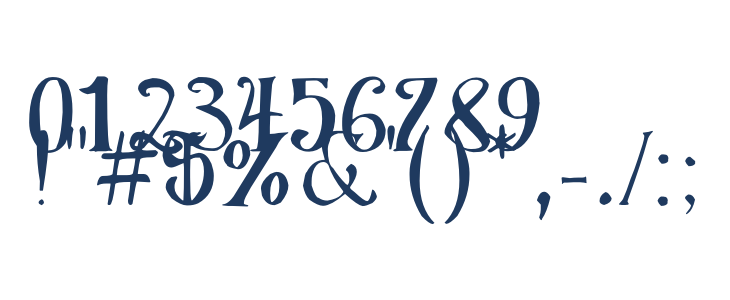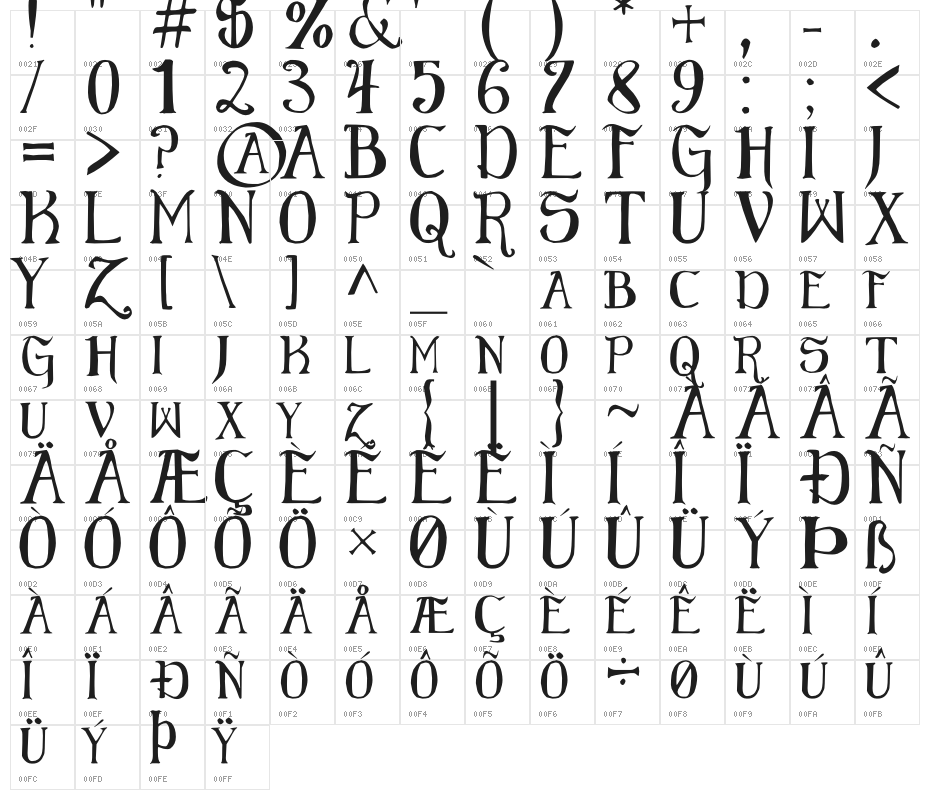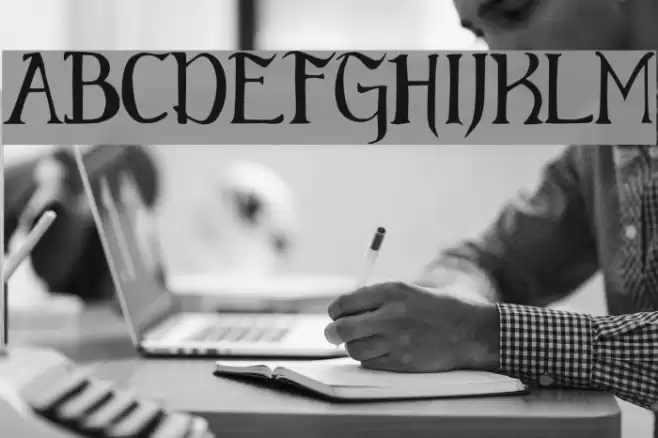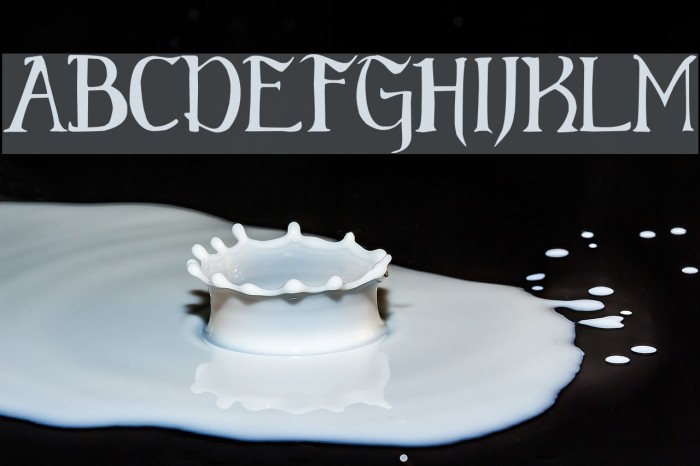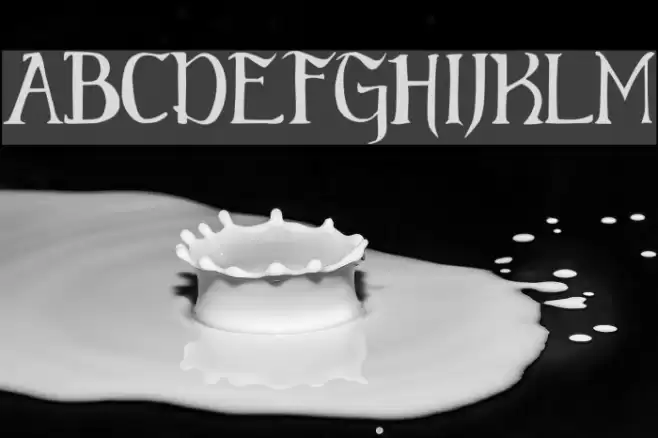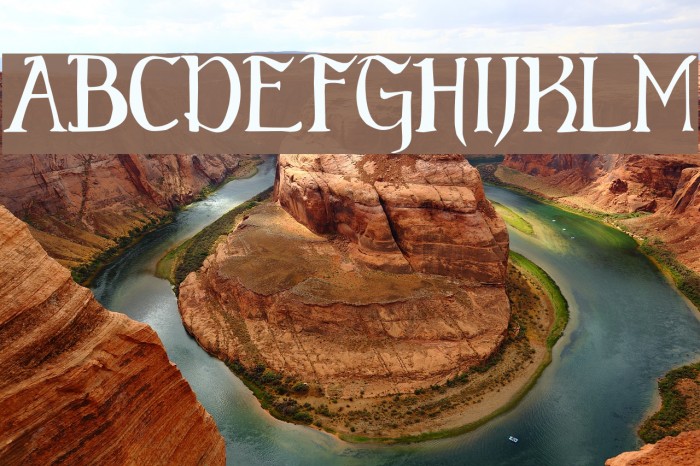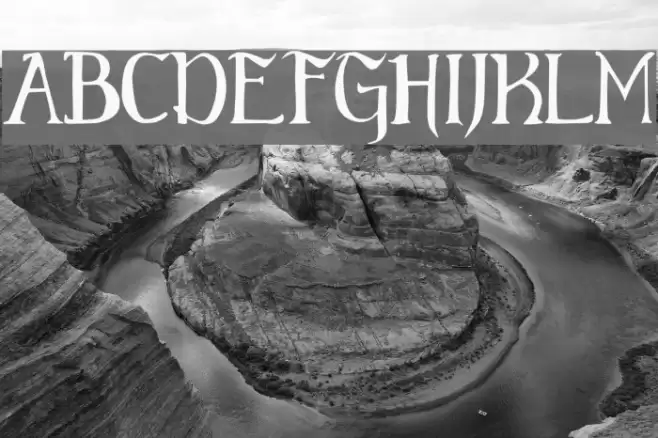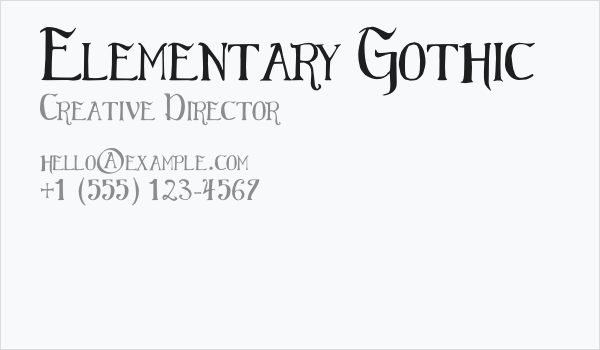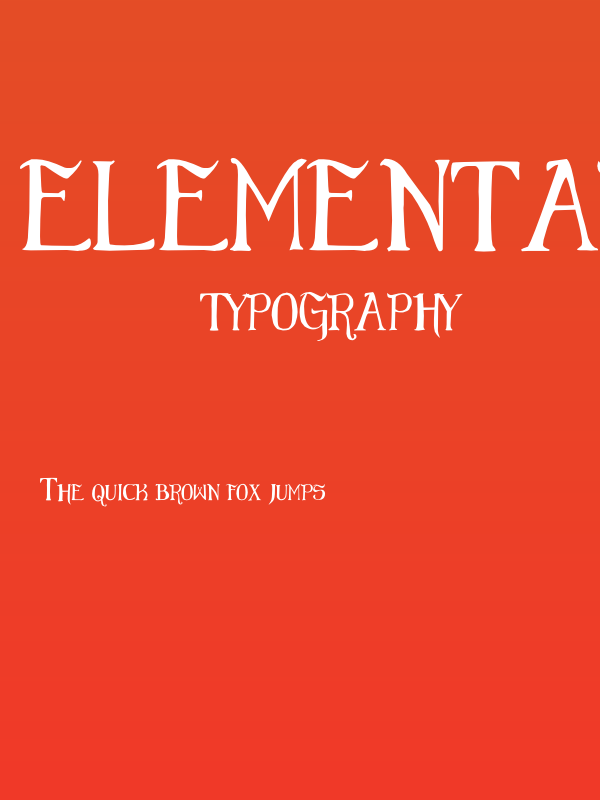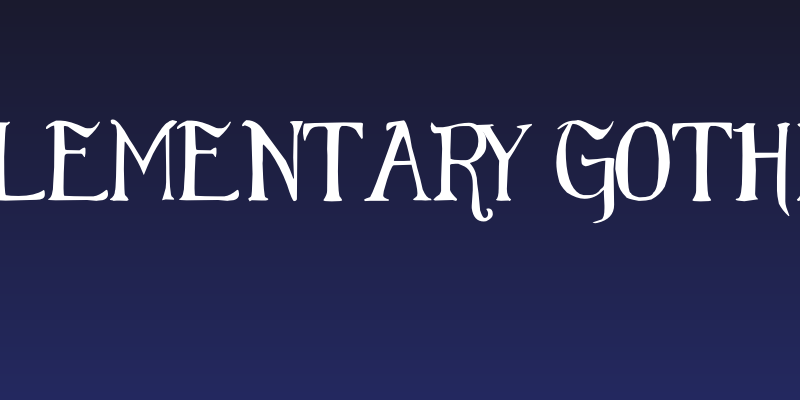
Elementary Gothic Font
Elementary Gothic Description
This font features a distinct Gothic style with sharp, angular lines and a dramatic flair. The uppercase letters are bold and commanding, with intricate serifs that add a touch of elegance. The lowercase letters maintain the same Gothic influence, with a slightly more subdued presence. Numbers are equally stylized, offering a cohesive look across all characters. Special characters are designed to match the overall aesthetic, ensuring consistency throughout. The font's unique style makes it suitable for projects that require a historical or medieval touch.
Overall StyleVintage
Use CaseHeadlines, Logos, Decorative text
Proposed ProjectsIdeal for historical-themed designs, book covers, posters, and branding that requires a medieval or dramatic touch.